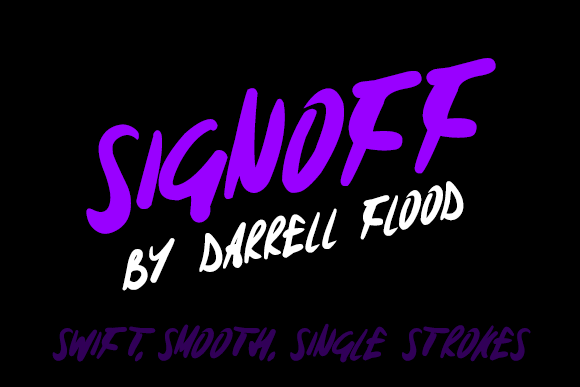
Signoff Font
About Signoff Font
A swift, smooth font, with variable line width, composed of single stroke characters. Can be used for a number of projects, and works strongest as a display typeface.